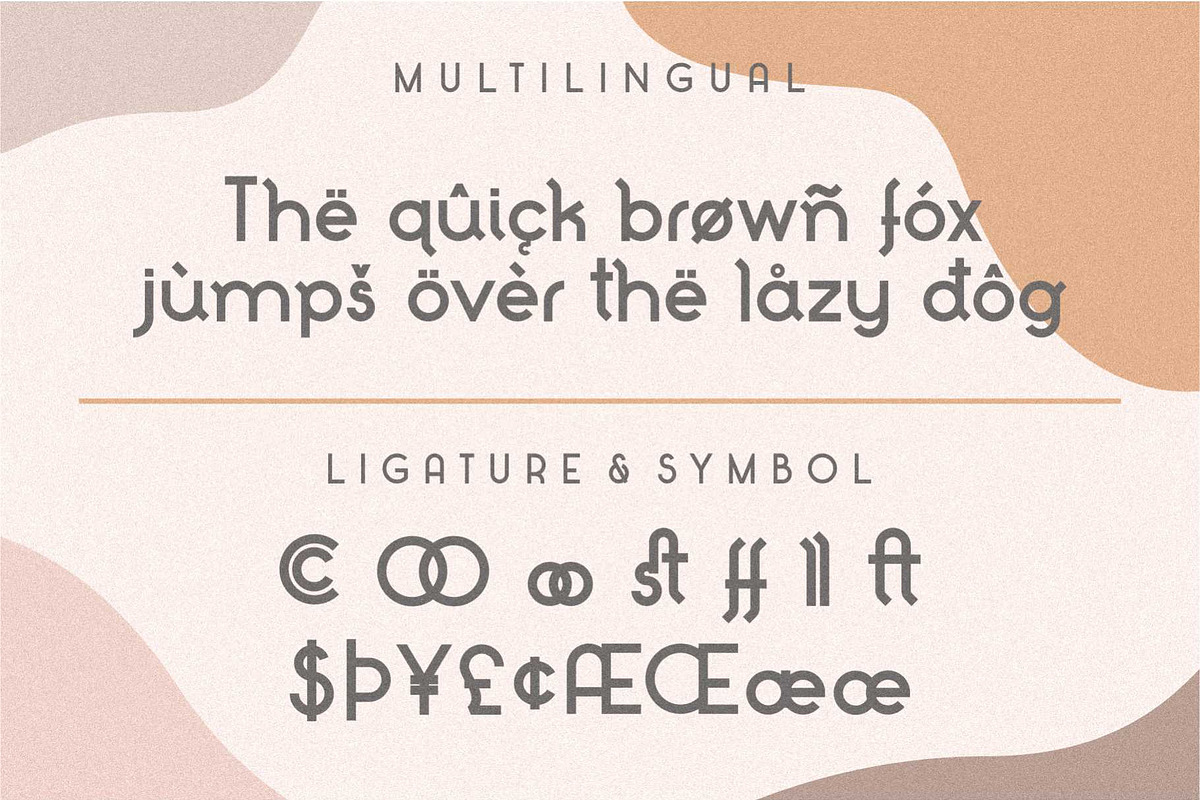
Nobstars
Nobstars is a sans font with another style which remains simple but modern, this font is suitable for fashion, brand, logo, book cover, magazine, music album, or anything that needs a touch of modern sans font.